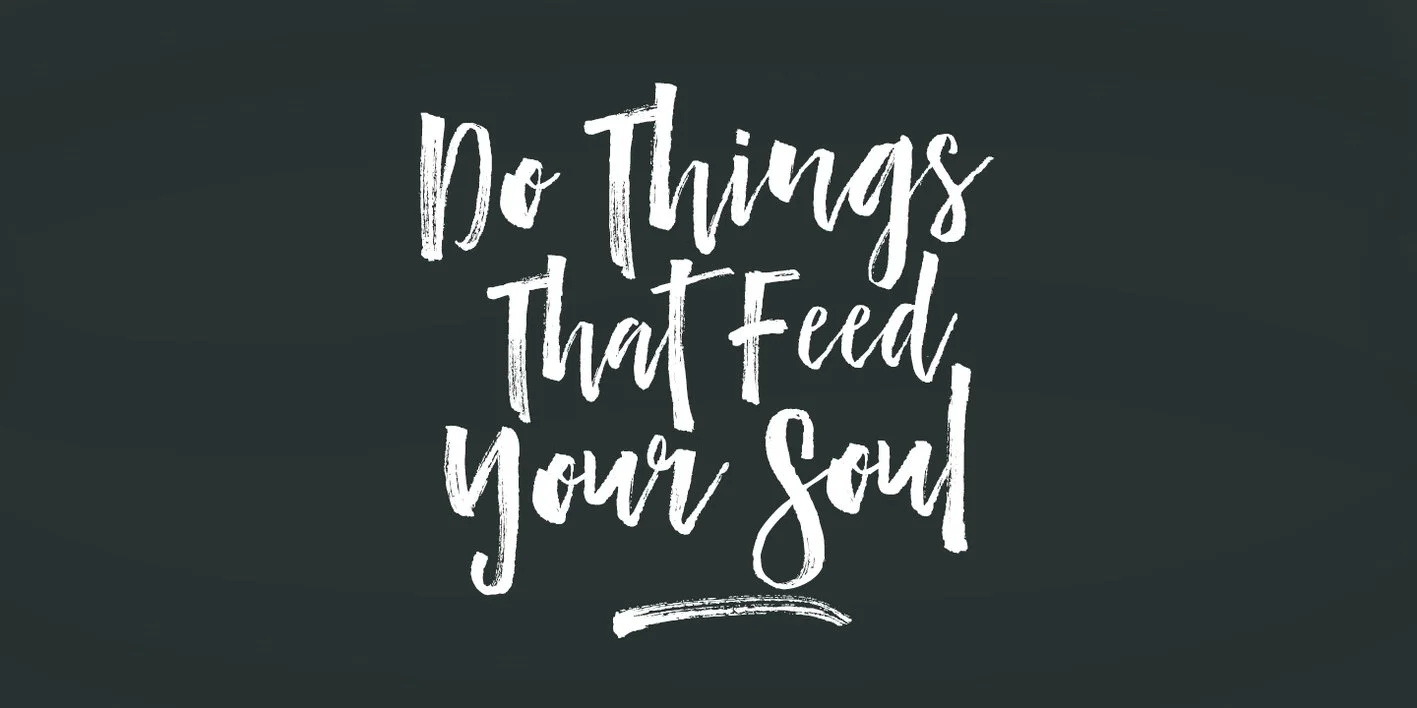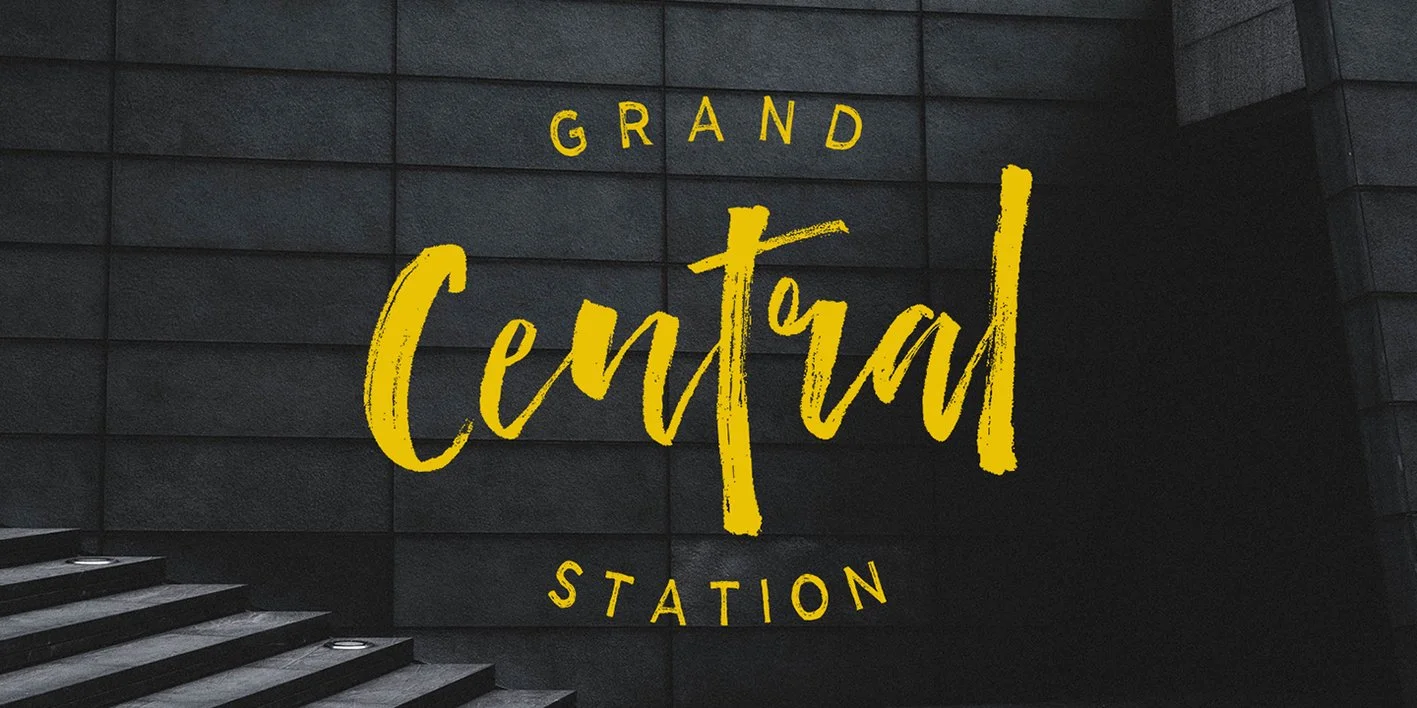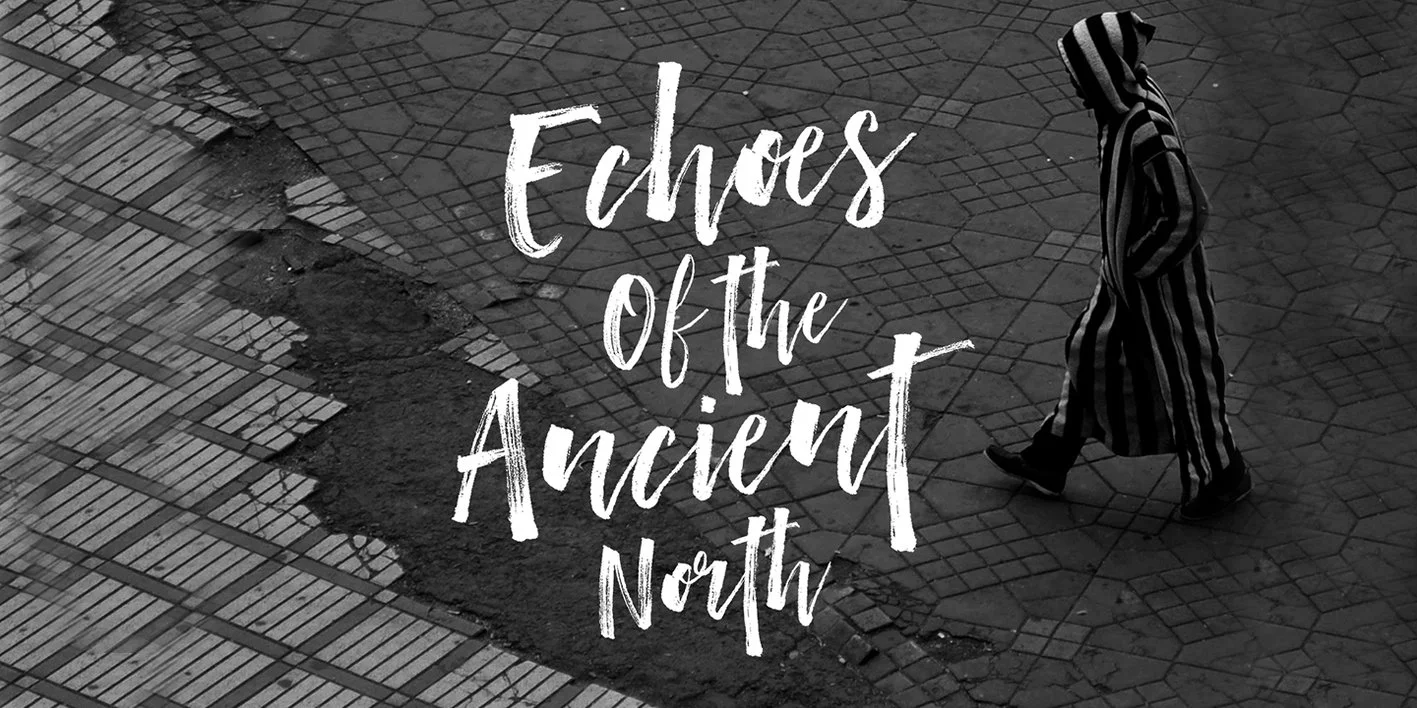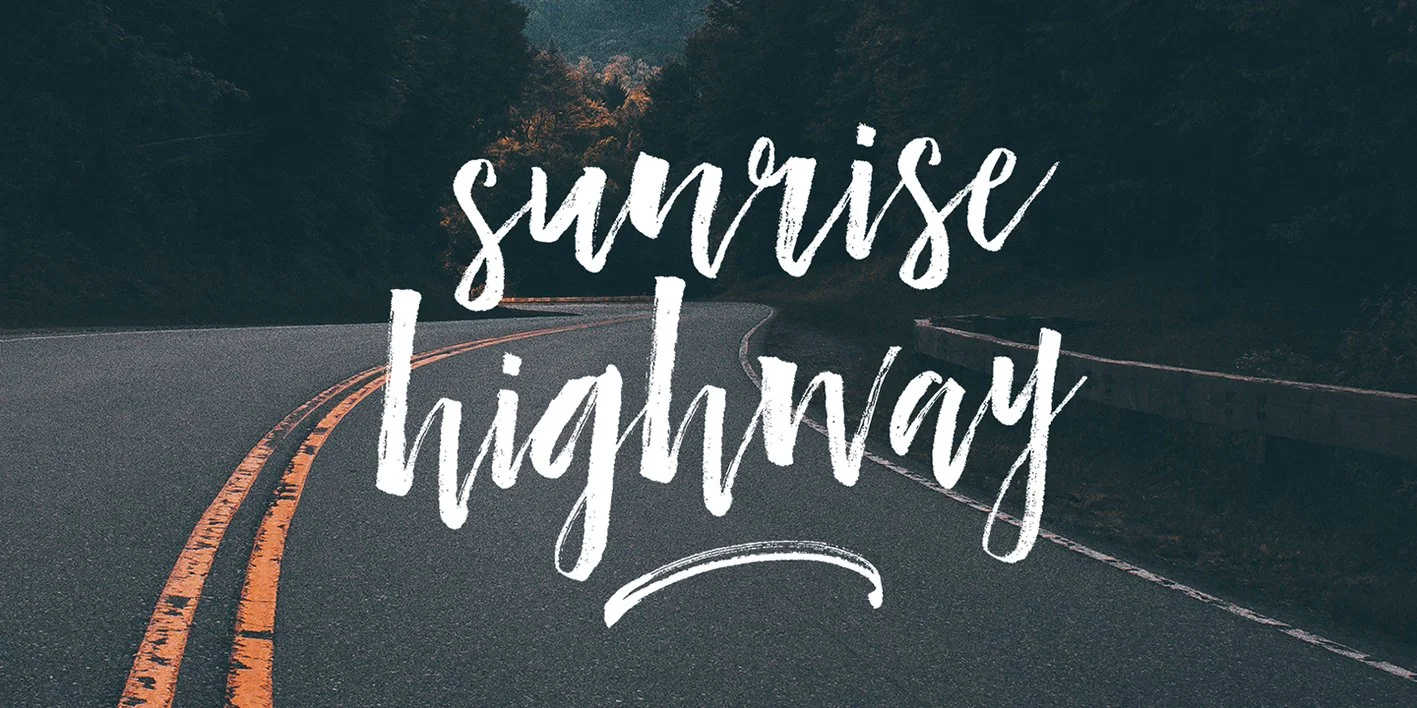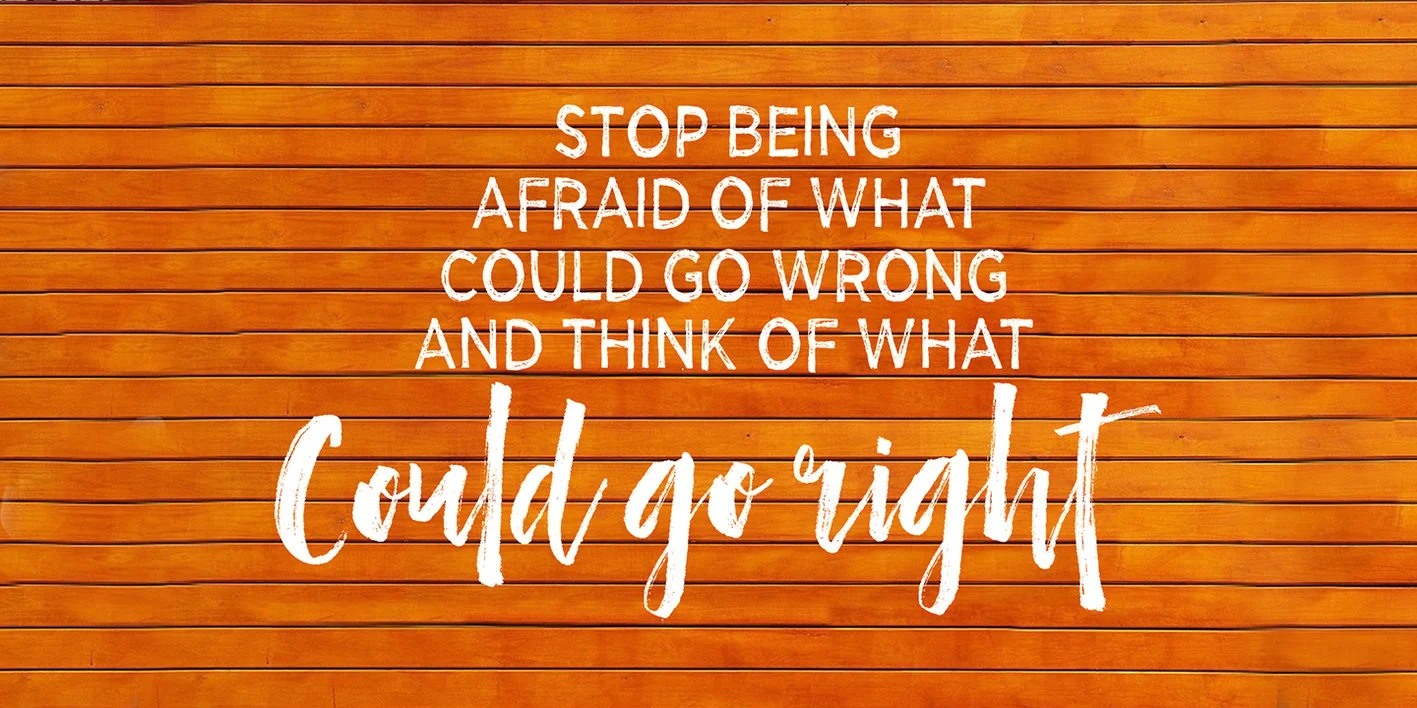
Boomshell Brush Font Family
Typography shapes perception at a subconscious level. Boomshell Brush Family leverages consistent type colour across continuous text to make every composition feel considered. The typeface brings a loose, expressive brush sensibility to a broad range of creative disciplines, with optical balance across all weights that holds up whether the work is print-first or screen-first.
In practice, Boomshell Brush Family proves particularly effective for craft brewery labels, advertising campaigns, packaging design, coffee shop menus, annual reports. Designers reaching for it find that the type decisions feel resolved rather than laboured — a useful quality when client timelines are tight.
Stroke endings carry the authentic irregularity of a real bristle brush — no two terminals are mechanically identical. Baseline bounce and variable cap heights have been calibrated so the typeface reads as handcrafted without sacrificing alignment consistency.
The range of applications extends to lifestyle brands, web design, yoga studios, hand-lettered prints. That breadth is deliberate: the proportions and spacing were stress-tested across a wide range of mock briefs before the typeface was finalised.
Boomshell Brush Family sits comfortably alongside both classic and contemporary typefaces in multi-font hierarchies. It takes direction rather than competing for attention — a quality that experienced designers know is harder to find than it appears.
Independent studios handling packaging and editorial work find Boomshell Brush Family a reliable choice for projects that demand both personality and restraint. The design avoids the self-conscious quirkiness that dates quickly, settling instead for considered distinctiveness that holds up over time.